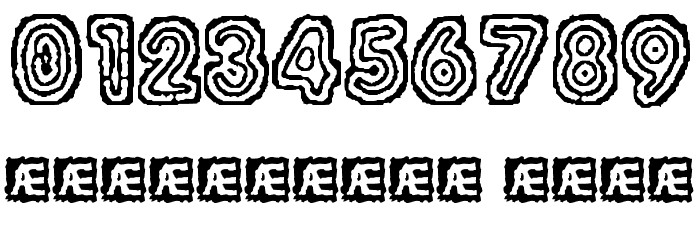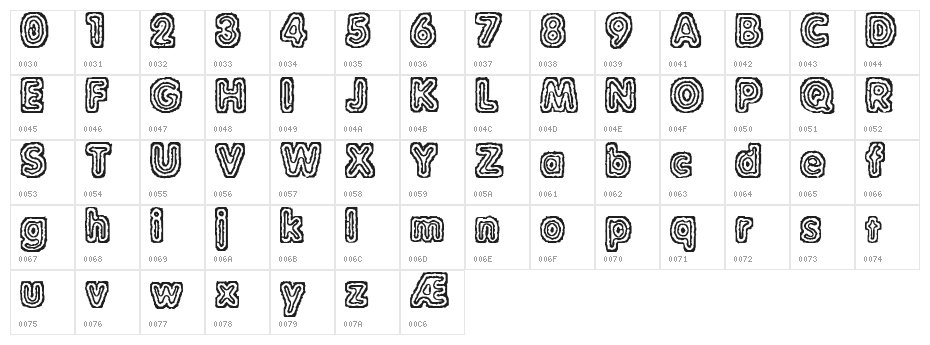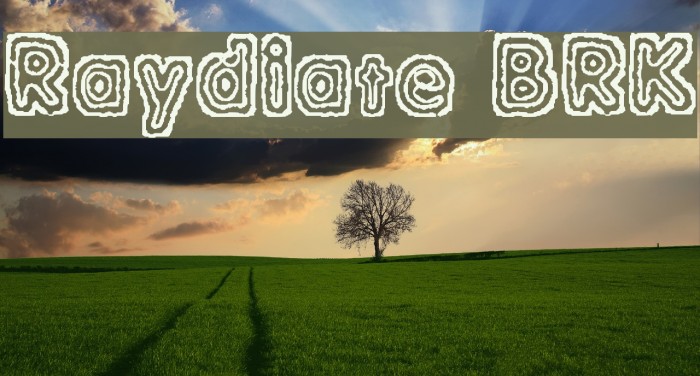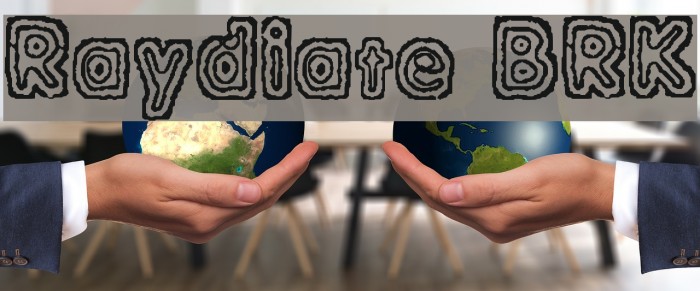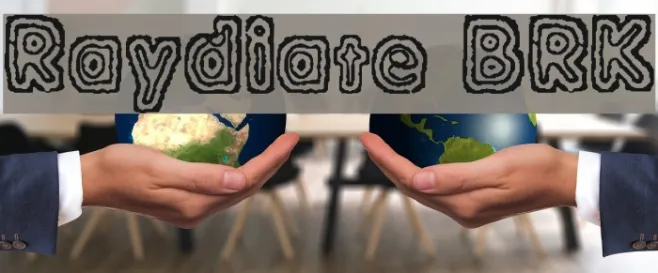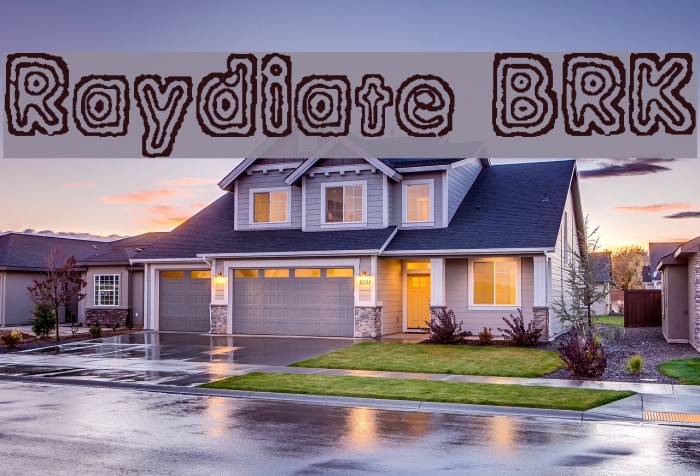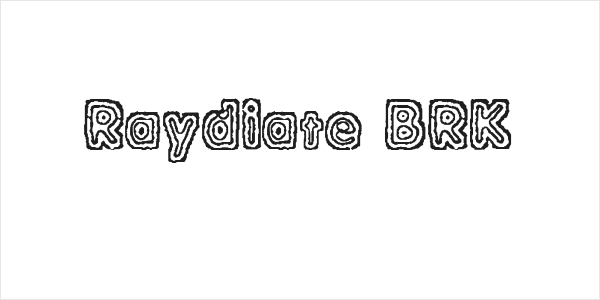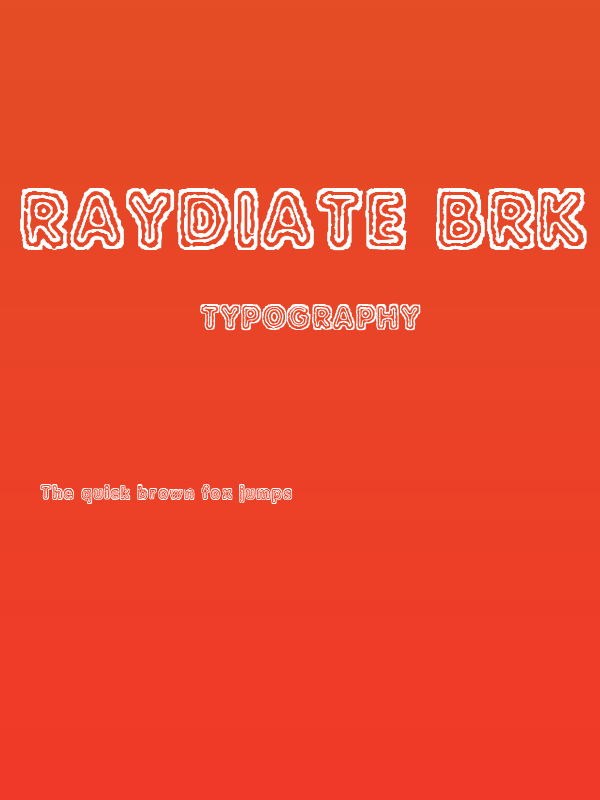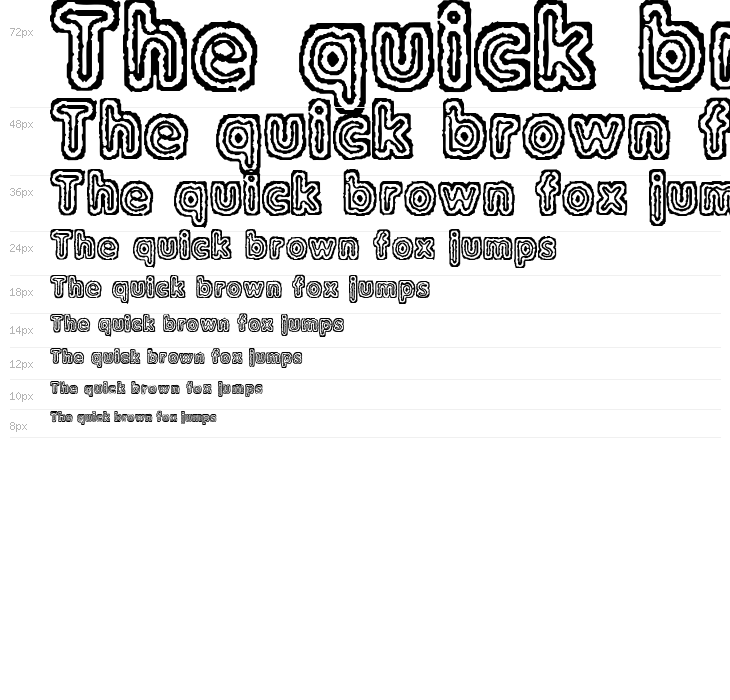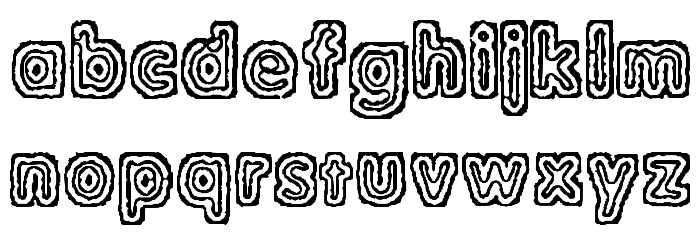
Raydiate BRK Font
Raydiate BRK Description
This font features a bold, playful design with a distinct outline effect that gives each character a three-dimensional appearance. The letters are uppercase and lowercase, with numbers and a selection of special characters. The style is reminiscent of retro or comic book aesthetics, making it stand out with its unique, layered look. The font's thick strokes and outlined design create a strong visual impact, suitable for eye-catching headlines or creative projects. The characters are evenly spaced, ensuring readability while maintaining their decorative appeal.
| Overall Style | Retro, Playful |
| Proposed Projects | Ideal for comic book titles, retro-themed posters, playful branding, and eye-catching headlines. |